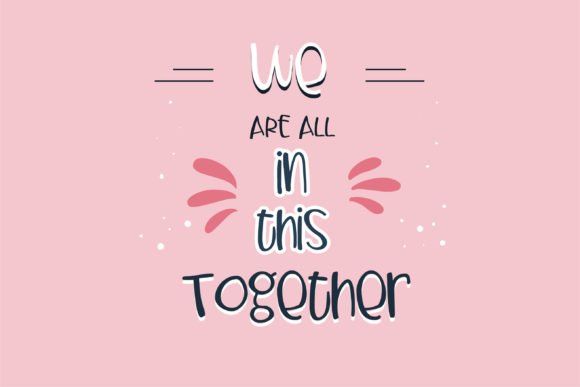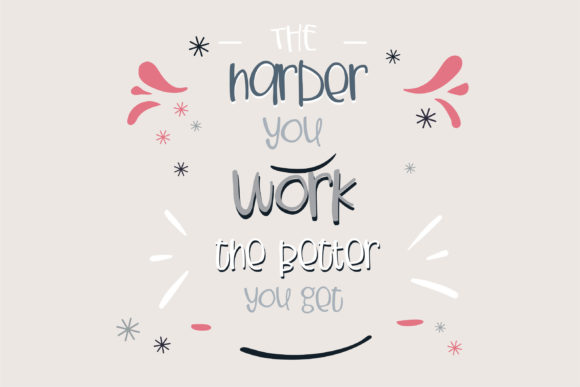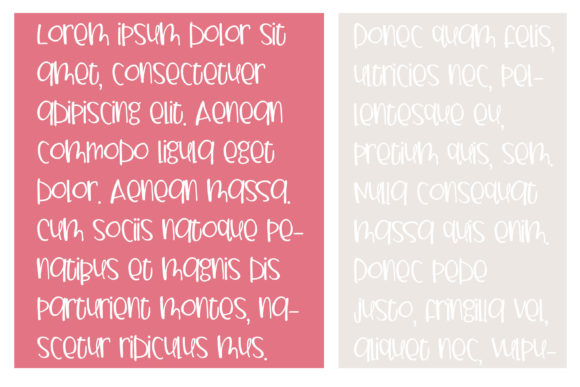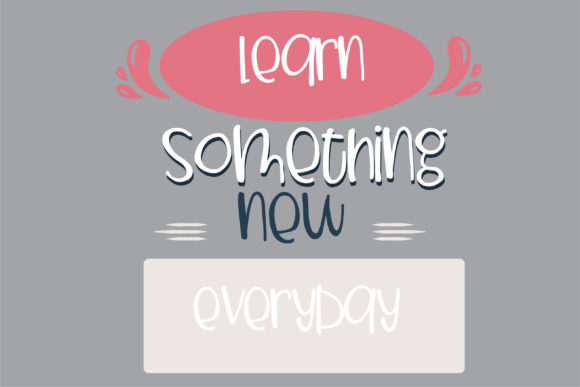
About PN Froogle Font
PN Froogle is a playful and lighthearted handwritten font that exudes a whimsical and silly charm. With its unique and fun character, this font is a versatile addition to your fonts’ library, capable of enhancing a wide range of creative projects.
The charming and carefree strokes of PN Froogle make it an ideal choice for adding a touch of playfulness to your designs. Whether you’re working on children’s books, party invitations, greeting cards, social media posts, or any other project that requires a cheerful and relaxed vibe, PN Froogle is sure to capture attention and bring a smile to your audience.
The distinctive letterforms of PN Froogle give your text a handwritten appearance, infusing your designs with an authentic and organic feel. Its potential to elevate any creation lies in its ability to transform ordinary text into something eye-catching and memorable. From headlines to product packaging, PN Froogle adds a dynamic and animated quality to your design elements.
PN Froogle’s versatility allows it to adapt to various themes and styles, making it suitable for both casual and creative contexts. The font’s playful demeanor and relaxed nature enable you to explore different design possibilities, ensuring that your creations stand out and capture the essence of fun and imagination.
In conclusion, PN Froogle is a whimsical and silly handwritten font that holds the power to elevate any creation it graces. Its ability to infuse designs with a sense of playfulness and charm makes it an invaluable asset in your design toolkit. Whether you’re aiming to create joyful and light-hearted visuals or simply want to add a touch of whimsy, PN Froogle is the perfect choice to breathe life and character into your projects.